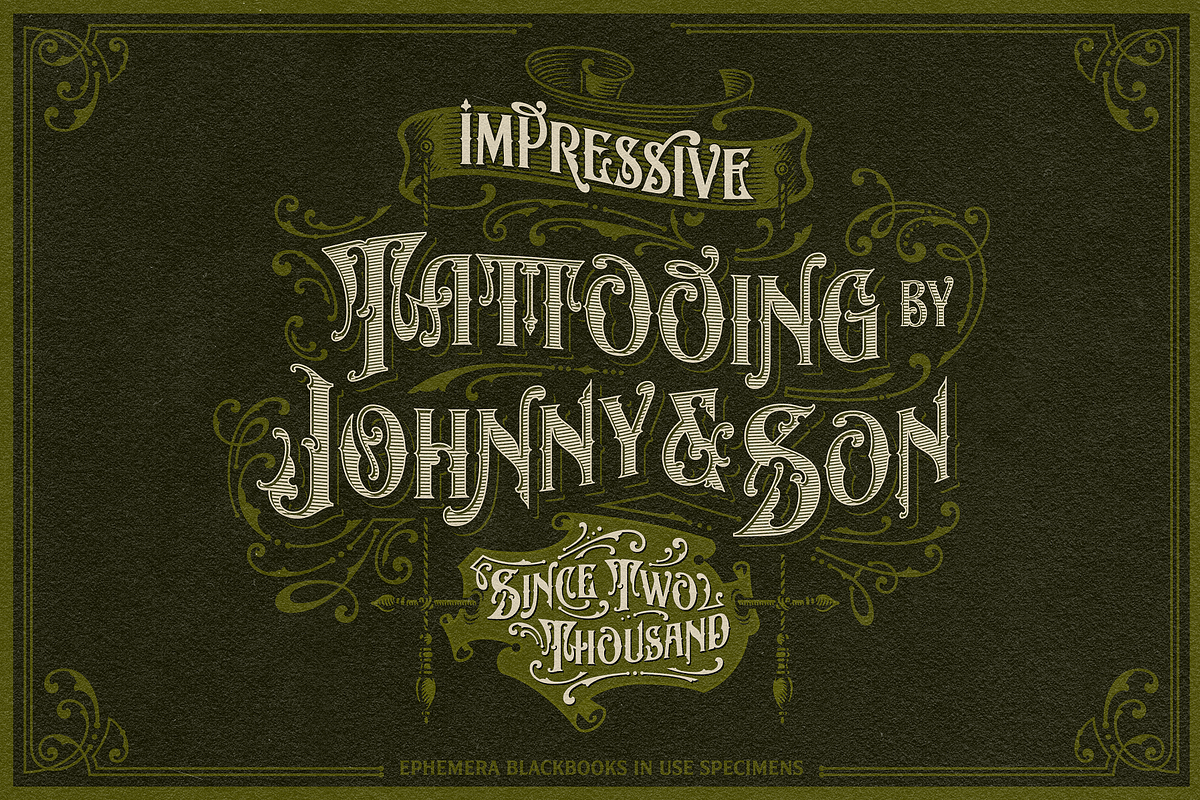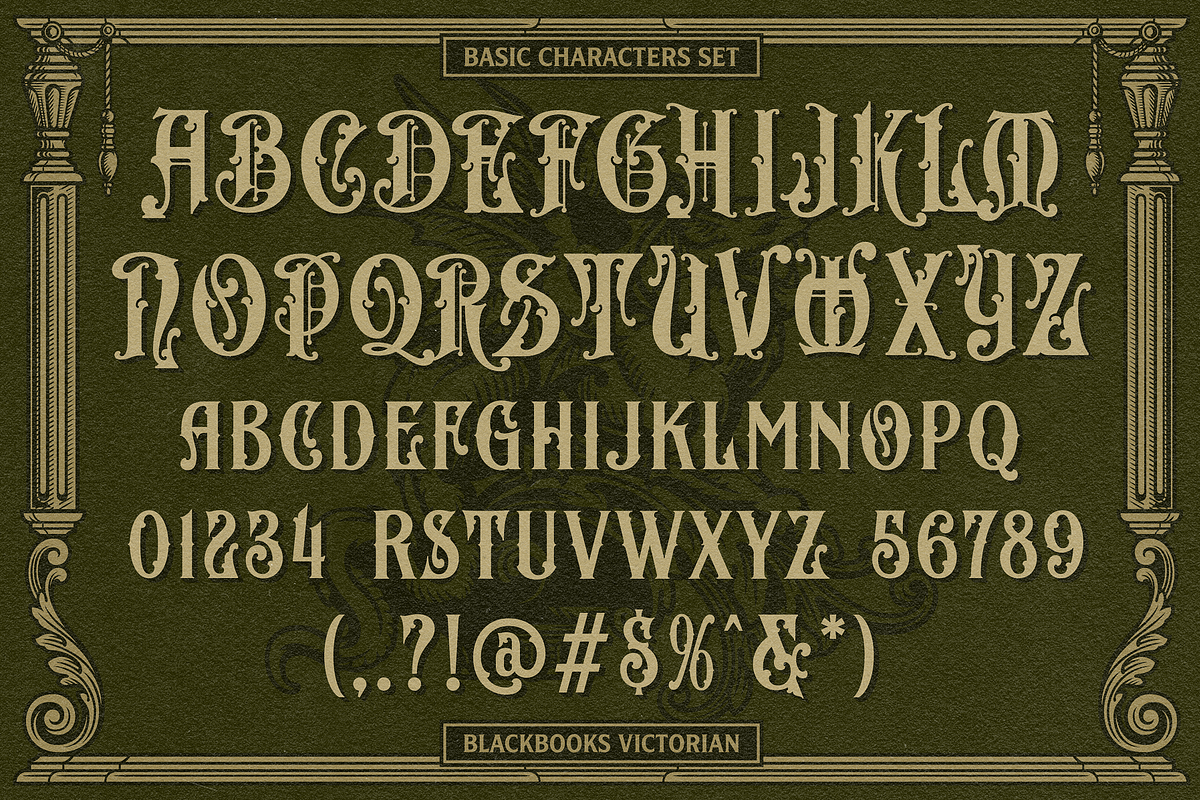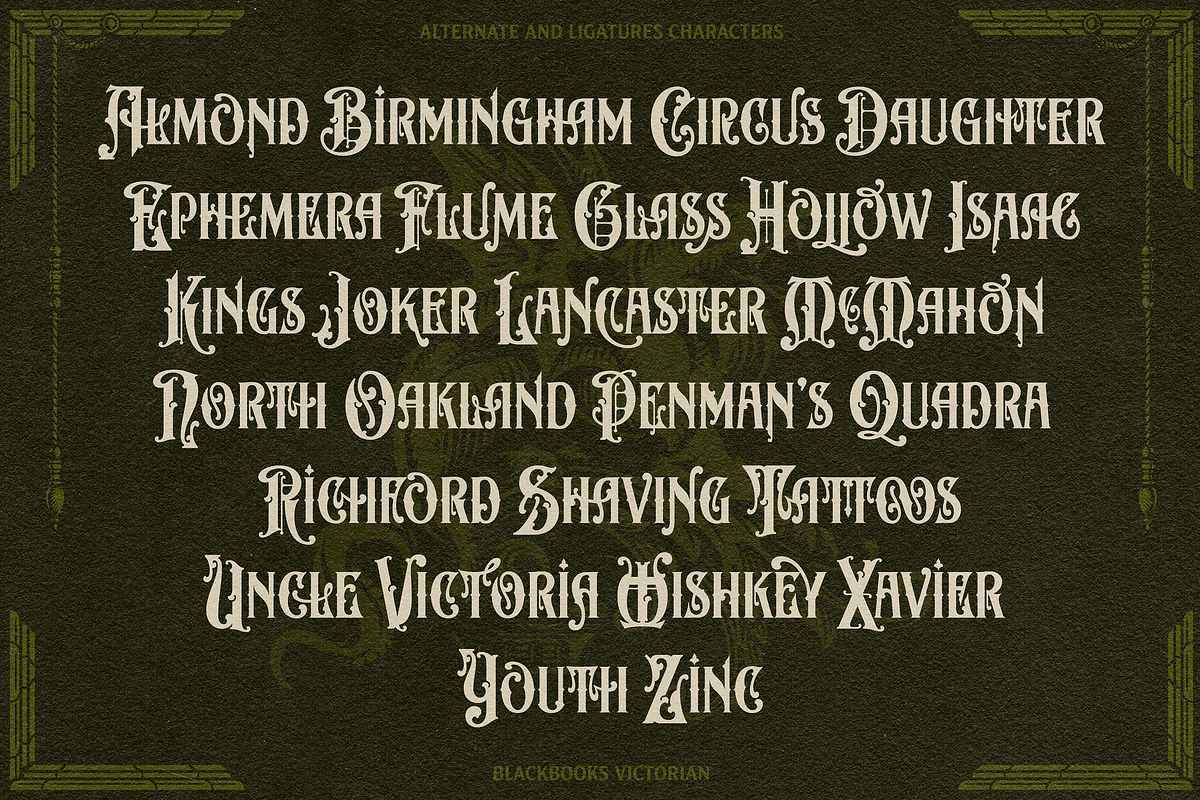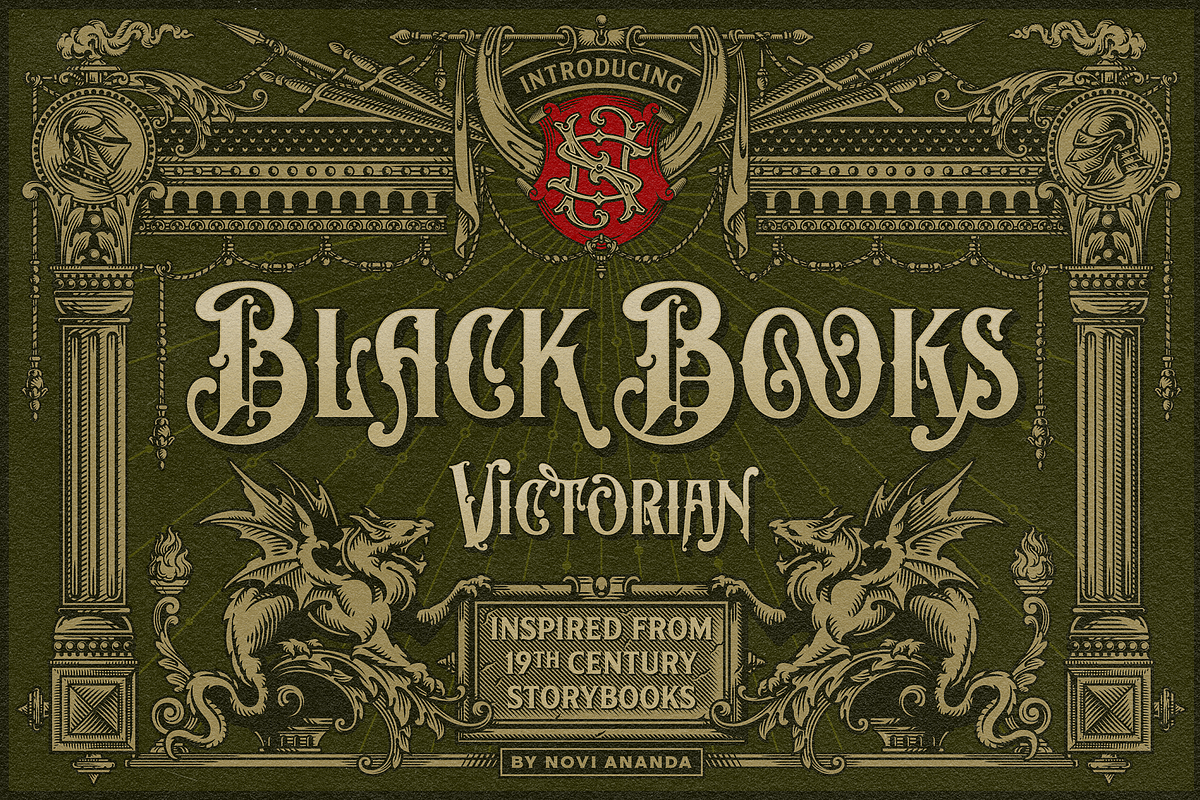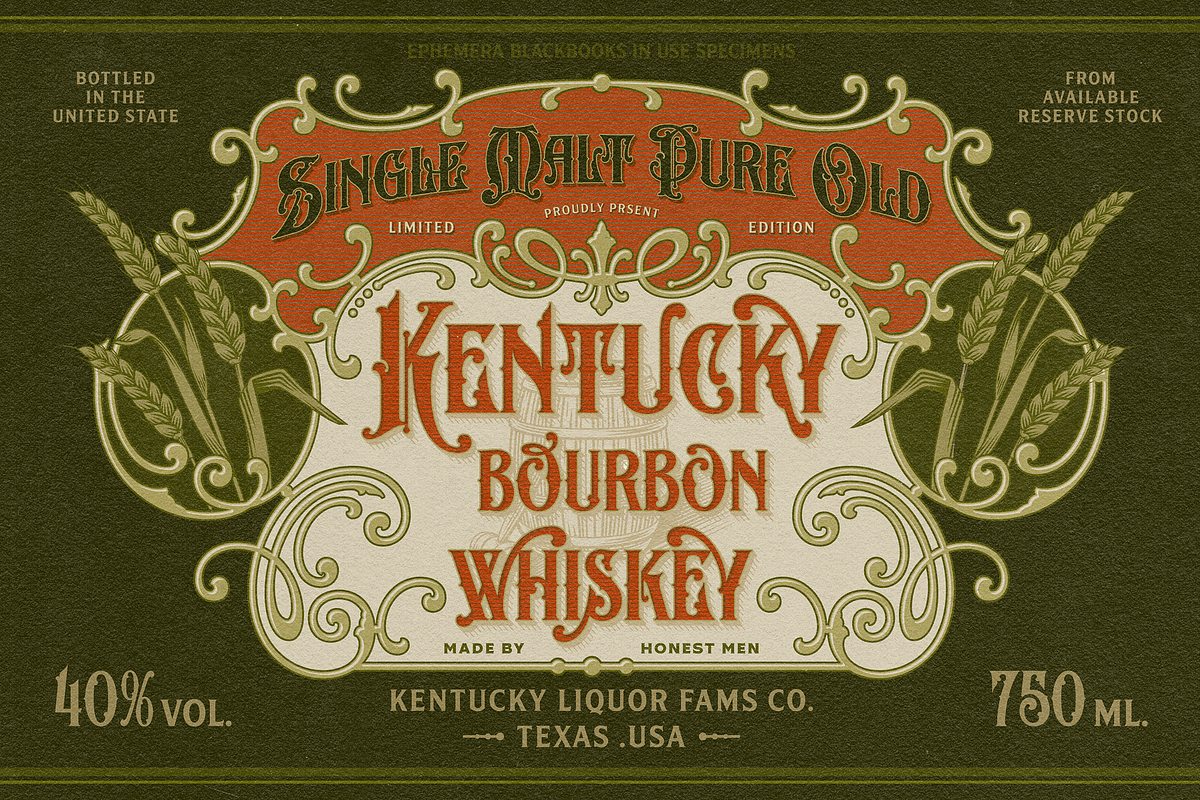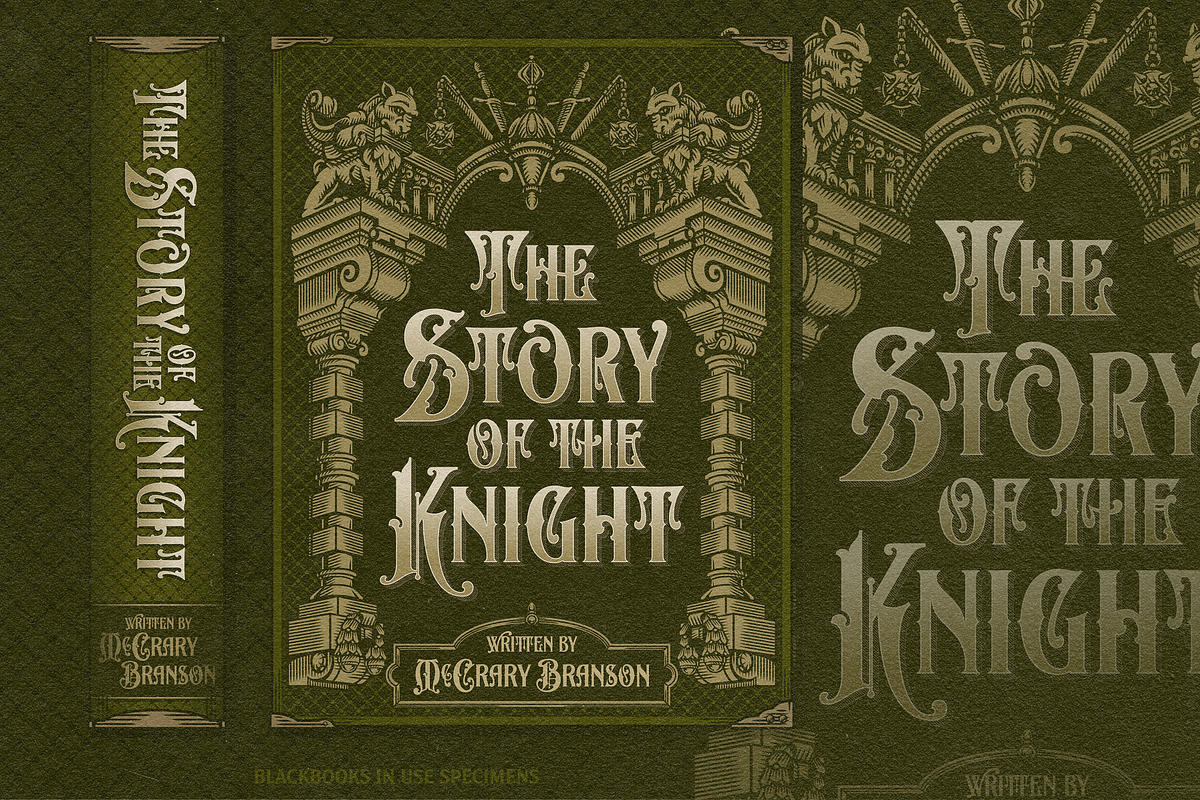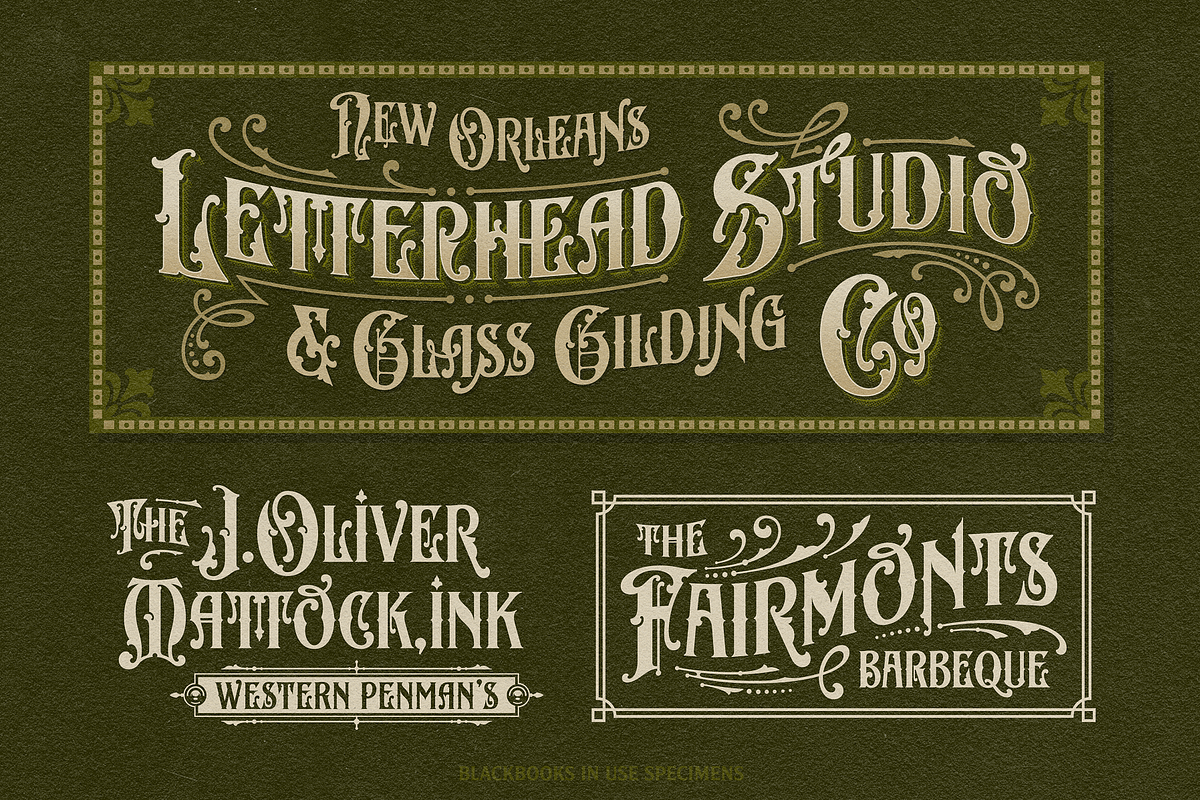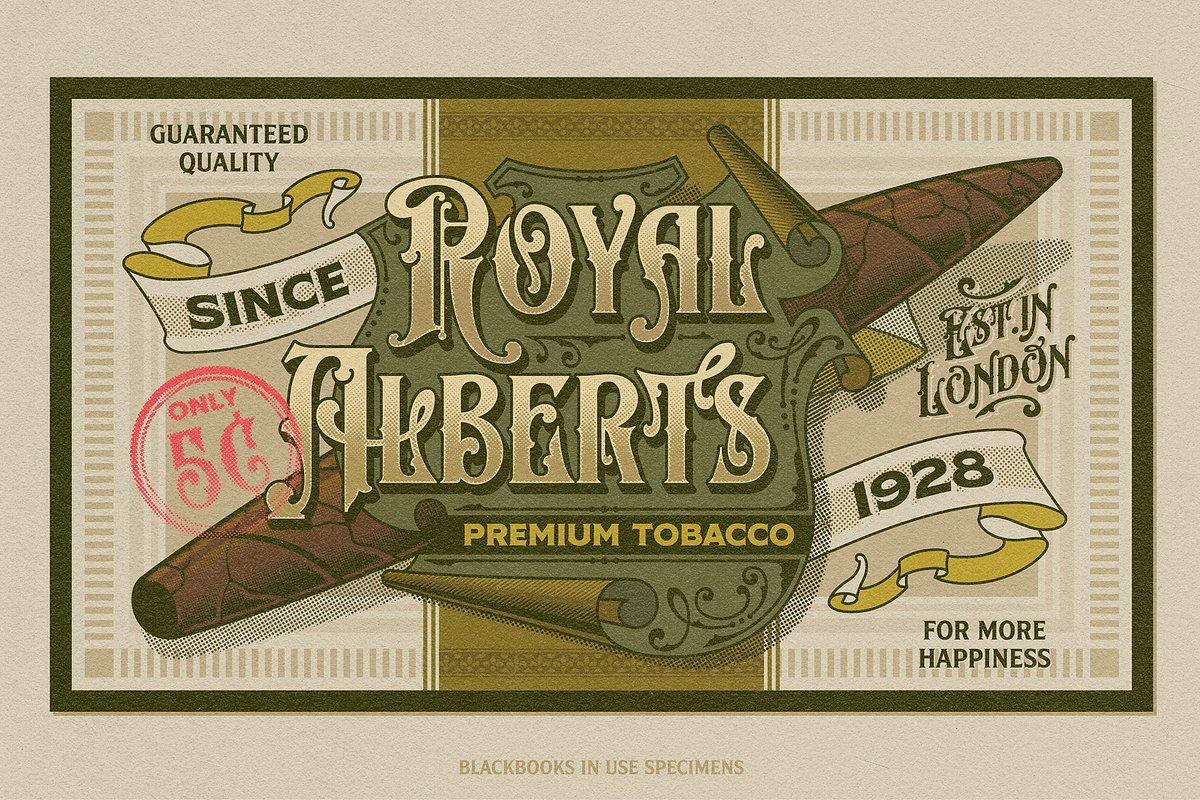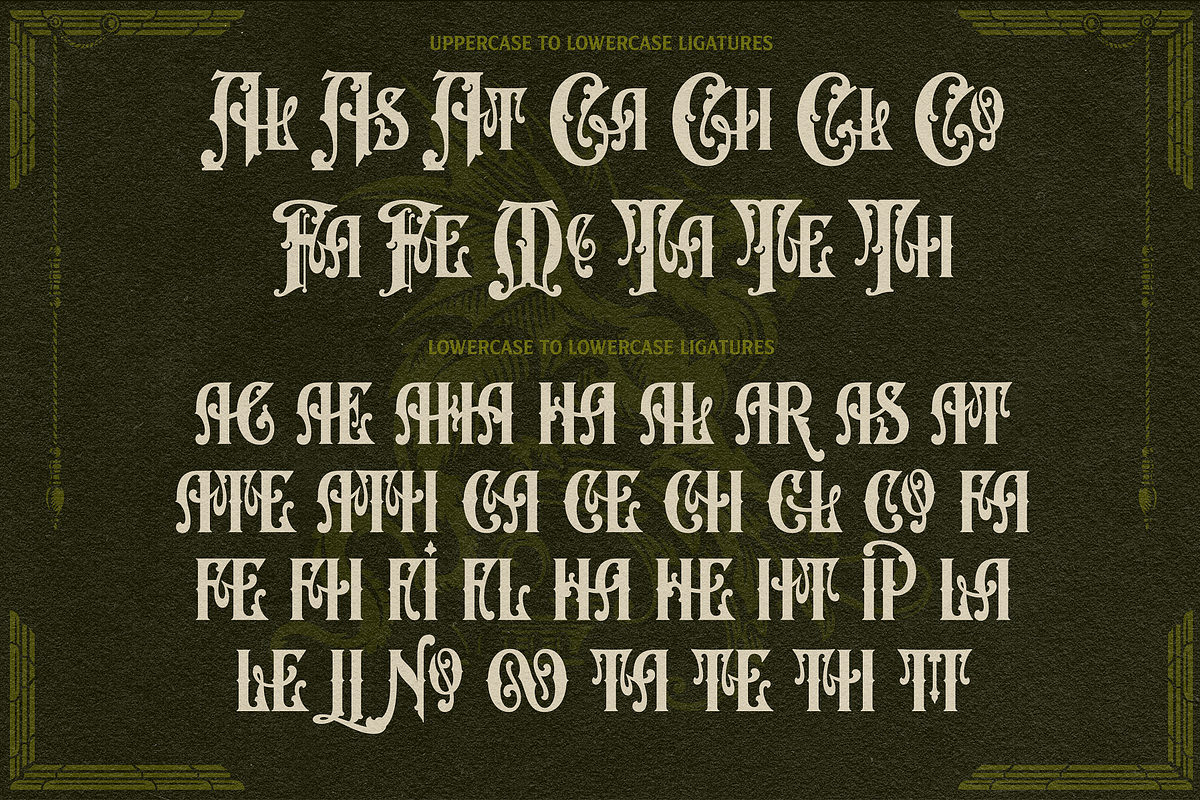
NS Blackbooks Vintage Font
Reminiscing the old era of historical books (seriously, that old), circa 19th century. We crafted the letters by connecting the dots from the past with research for every flow, ornaments, look, and feel, to precisely aim for that perfect shape. Blackbooks are born with a dark and robust personality. Feel the European historical mood right away, even with just typing it with your keyboard. You don't even realize when the design is done cause we make it so easy as a one-click-time-machine to your works using Blackbooks Victorian font. It will be a perfect armory for a vintage headline, old book cover concept, sign, posters, playing cards deck design, vintage labels, beer labels, bar decoration, apparel, merchandising, you name it.
- OTF Features : Stylistic Set 01 to 07 and Ligature